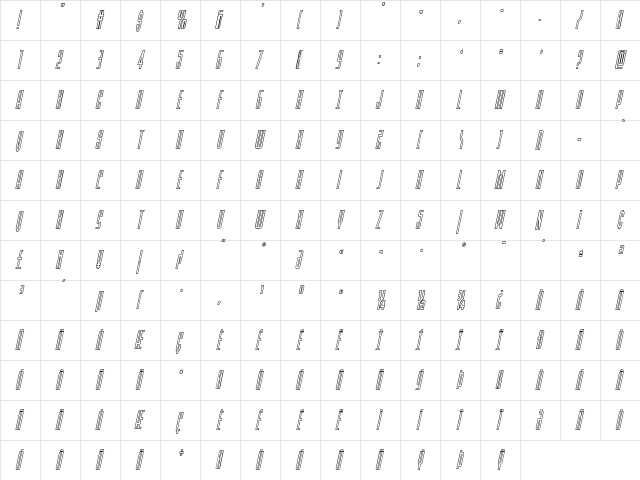
Blue Cobra Outline Italic Regular
Design Context for Blue Cobra Outline Italic Typeface
Blue Cobra Outline Italic is built around its visual character rather than neutral utility — its distinctive forms are designed to make an impression at display sizes. The slanted form adds forward momentum and visual energy.
Font Pairing: Pair with a clean neutral sans-serif for body copy to let Blue Cobra Outline Italic's character lead without overwhelming the composition.
Pro Tip: Use Blue Cobra Outline Italic exclusively at display sizes — it was designed to be seen, not read at length. Let a neutral companion handle body copy.